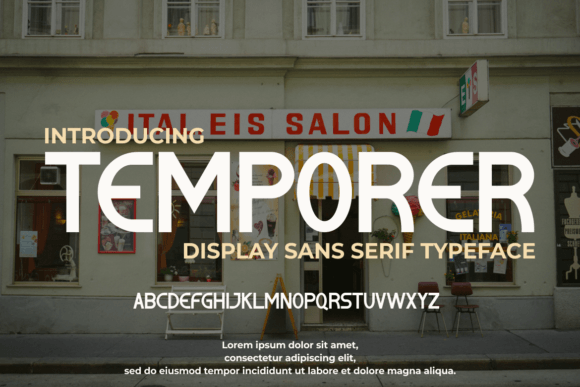
Introducing Temporer Font, the modern sans serif font that will transform your designs into captivating masterpieces. Step into a world of clean lines, minimalistic beauty, and boundless creativity with Temporer.
With its thin, smooth strokes and crisp edges, Temporer exudes a sense of elegance and sophistication that is sure to leave a lasting impression. Its versatility knows no bounds, making it the perfect choice for a wide range of projects, from logos and branding to web designs and social media posts.
Imagine your designs adorned with Temporer's graceful curves and sharp angles, commanding attention and creating a lasting impact. Whether you're a seasoned designer or just starting out, Temporer will effortlessly elevate your work and make your creative vision come to life.
Dive into the world of modern aesthetics with Temporer. Let its clean lines and timeless beauty captivate your audience and leave them in awe. Experience the joy of creating designs that resonate and connect with your users on a deeper level.